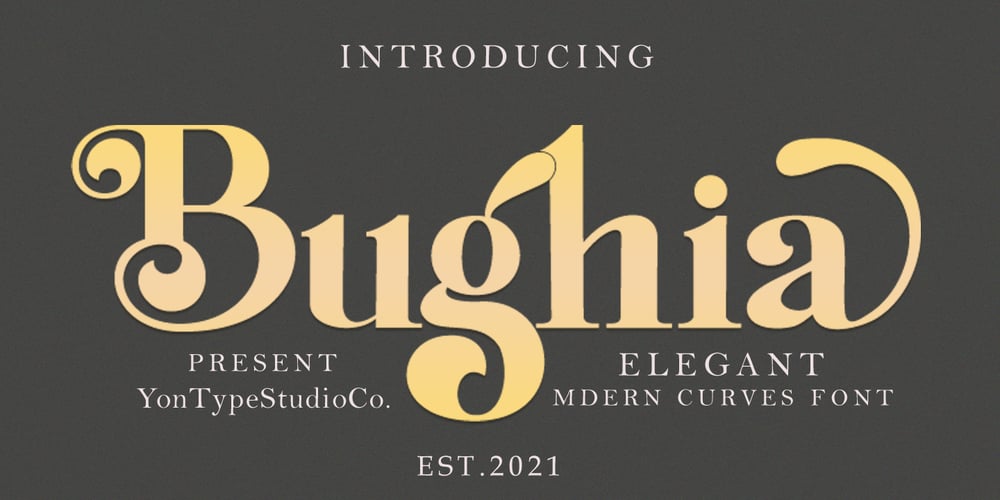
Bughia
Bughia font
Bughia Font Family was designed by Muhammad Yoni and published by YonTypeStudio Co. Bughia contains 1 styles and family package options. Bughia is an elegant and bold serif font. Fall in love with its incredibly versatile style and use it to create gorgeous wedding invitations, beautiful stationary art, eye-catching social media posts, and much more!Bughia is an upper and lowercase serif font with balanced curves. This font is inspired by writing from the good old days, but still has a strong modern look. A variety of stylistic alternatives that allow for versatile design options and work perfectly for headlines, logos, posters, packaging, T-shirts, postcards, and more.